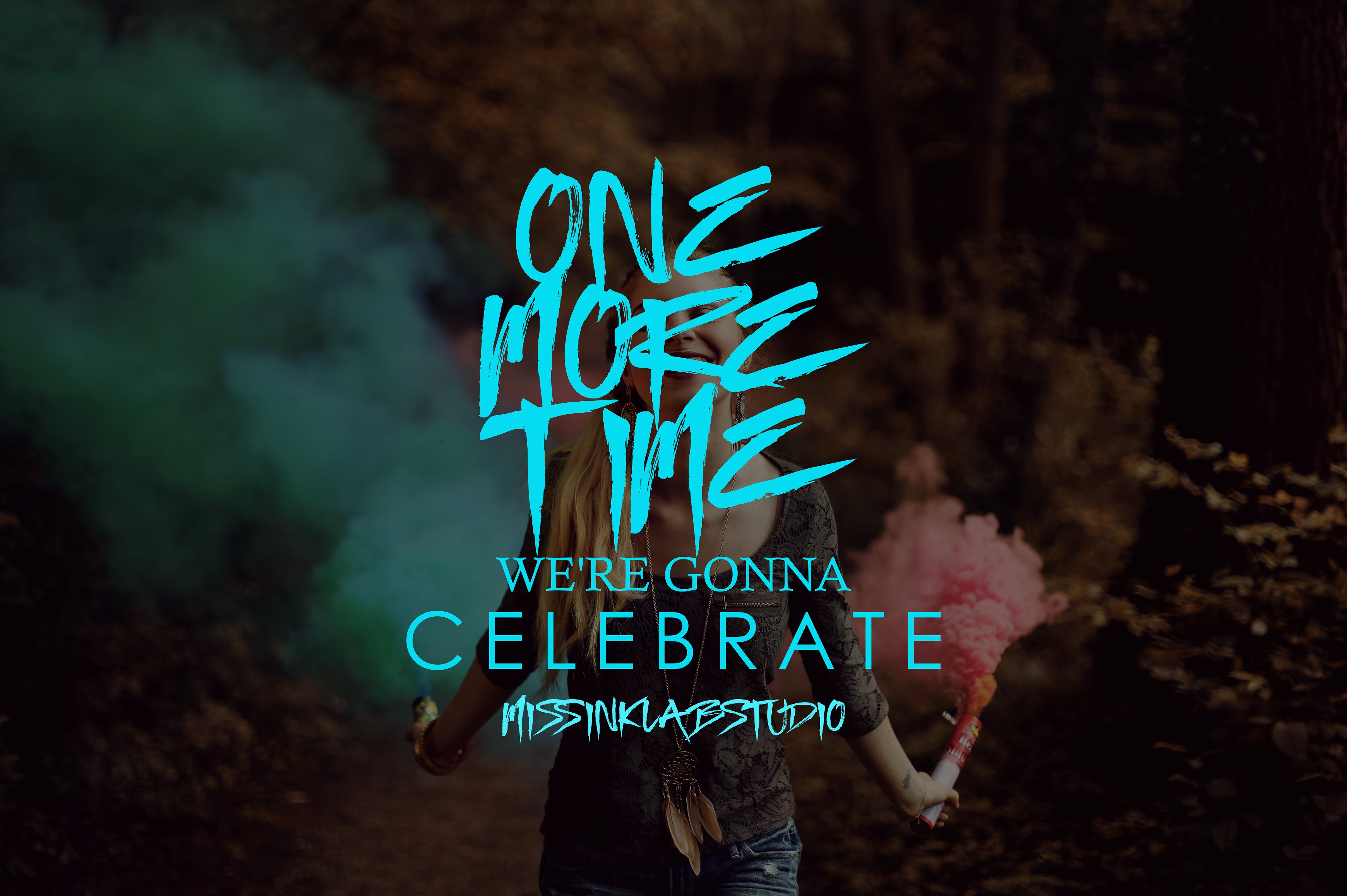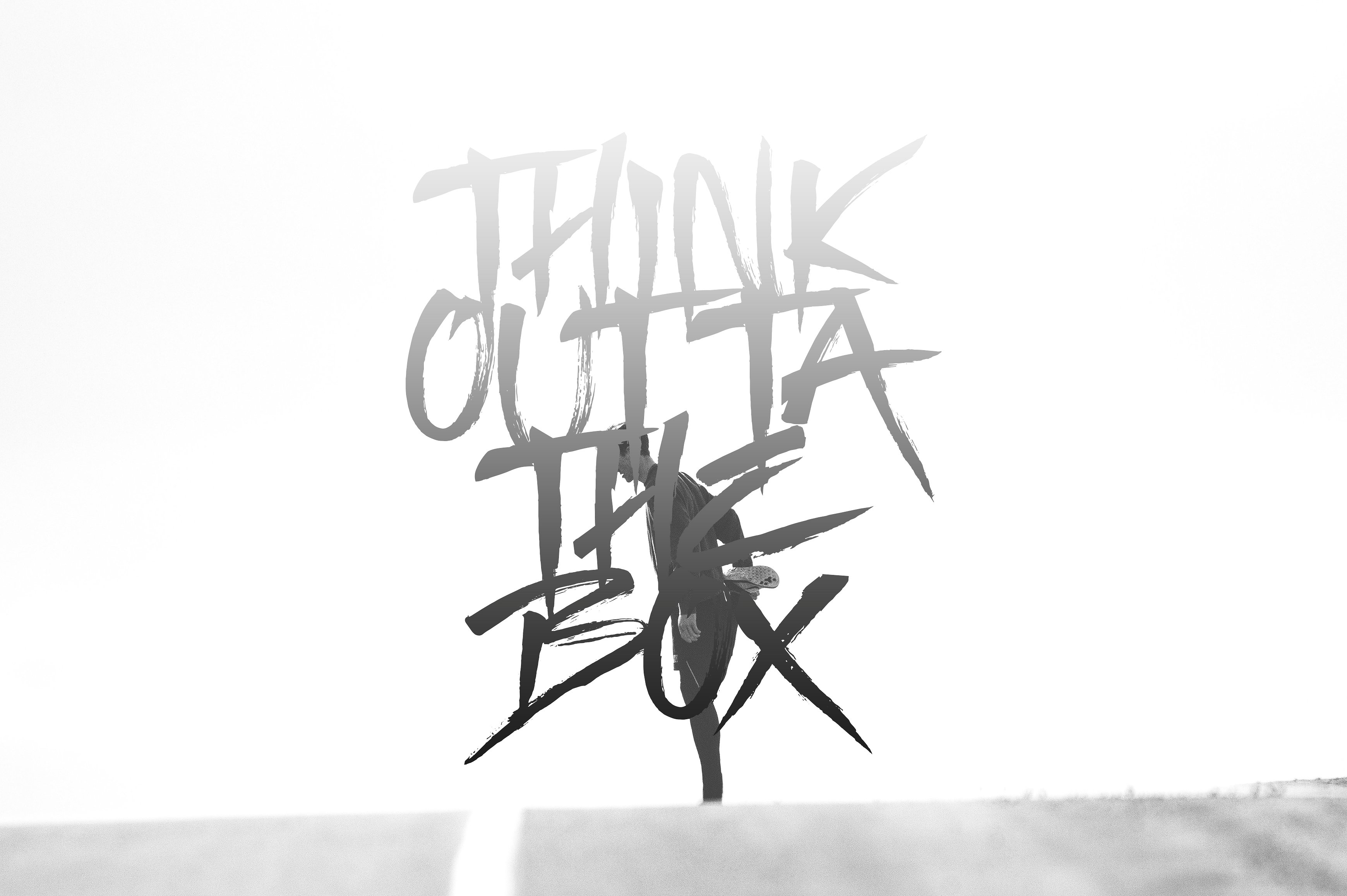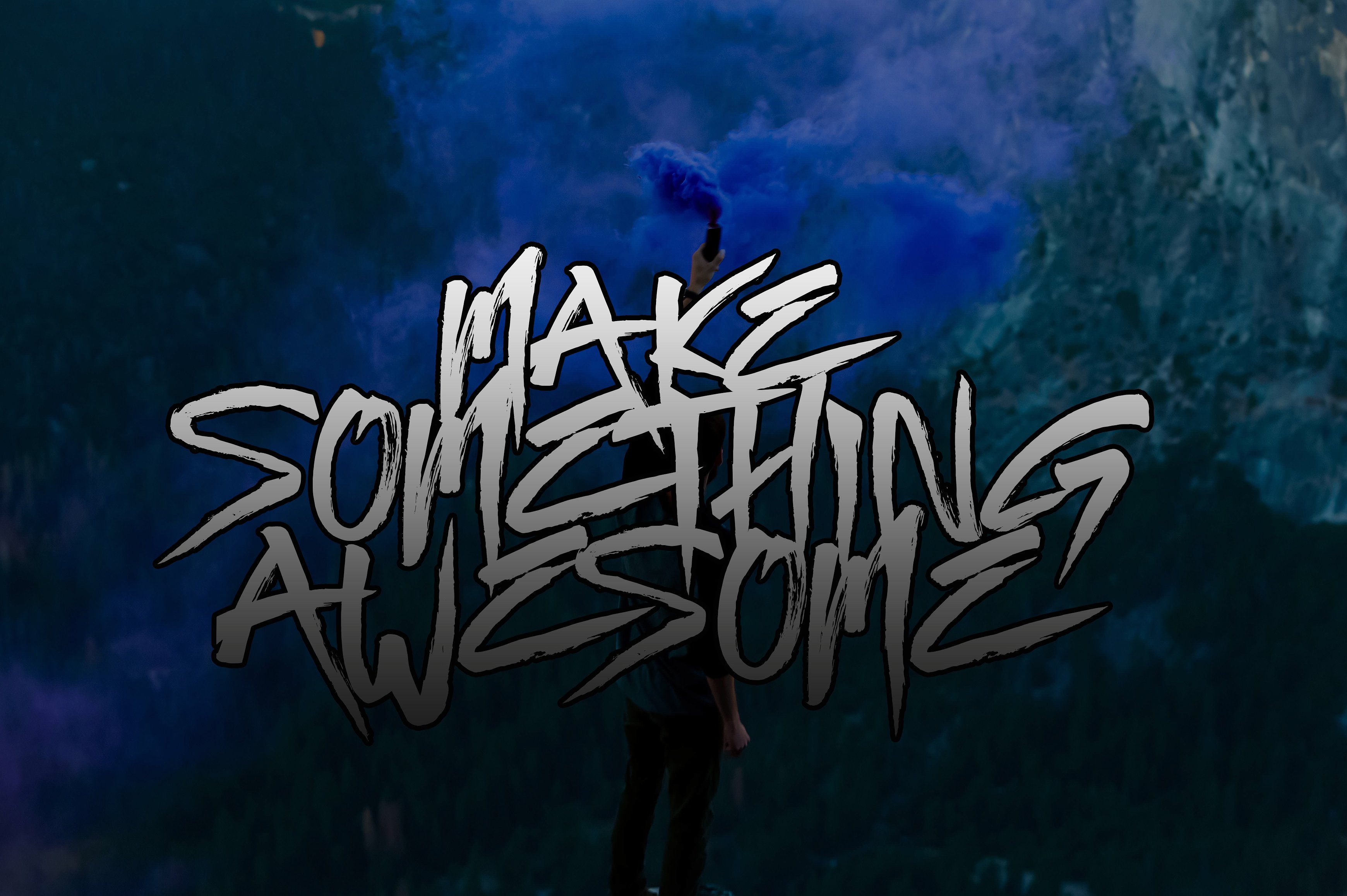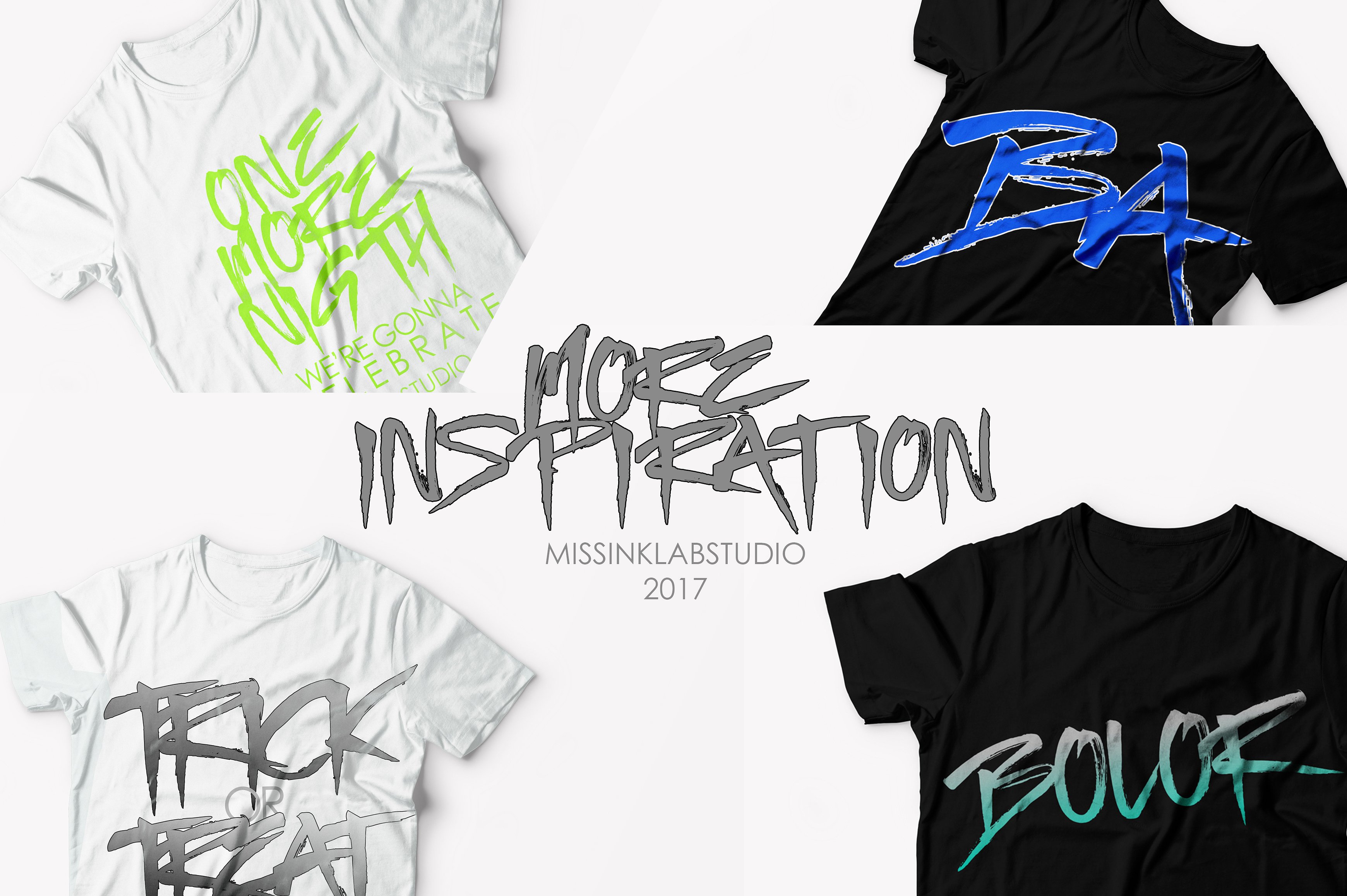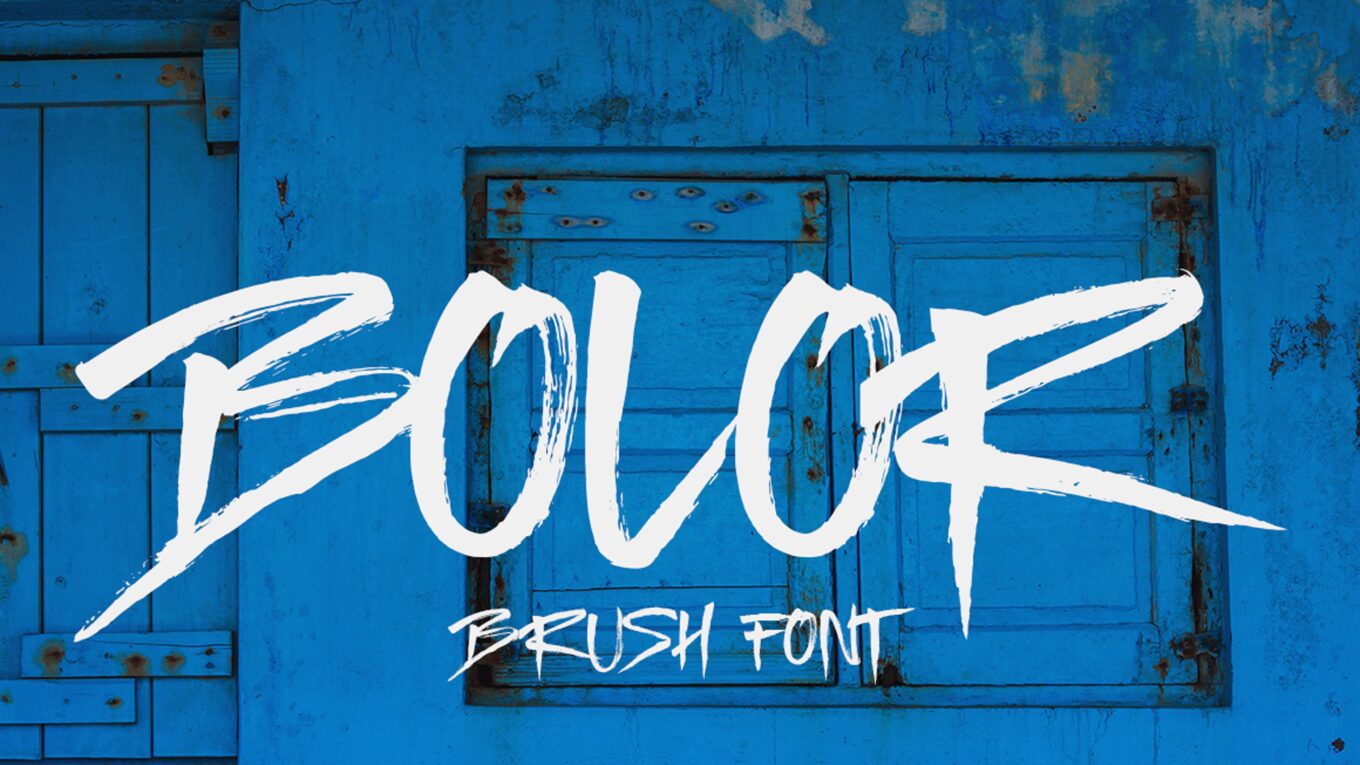
Bolor Font: A Handmade Brush with a Unique Authentic Style
Are you tired of using the same old fonts in your design projects? Do you want to add a personal touch to your corporate or personal branding? Look no further than Bolor Font, a handmade brush font that features a unique authentic style. In this article, we’ll dive into the world of Bolor Font and explore its features, benefits, and uses.
What is Bolor Font?
Bolor Font is a handmade brush font that is designed to bring a touch of authenticity and personality to your design projects. Unlike traditional fonts, Bolor Font is crafted with a unique, hand-brushed style that gives it a distinctive look and feel. This font is perfect for designers and crafters who want to add a personal touch to their work, whether it’s for a corporate or personal project.
Unique Features of Bolor Font
So, what sets Bolor Font apart from other fonts? Here are some of its unique features:
- Handmade with love: Bolor Font is carefully crafted by hand, giving it a unique and authentic style.
- Authentic style: The font features a distinctive, hand-brushed style that adds a touch of personality to your designs.
- Versatile: Whether you’re working on a corporate or personal project, Bolor Font can be used in a variety of design applications, from logos and branding to invitations and packaging.
Benefits of Using Bolor Font
So, why should you choose Bolor Font for your design projects? Here are some benefits of using this unique font:
- Adds personality: Bolor Font adds a touch of personality and authenticity to your designs, setting you apart from the crowd.
- Creates a unique look: The font’s hand-brushed style creates a unique look that is sure to grab attention.
- Easy to read: Despite its handmade style, Bolor Font is easy to read and understand, making it perfect for body text and headlines.
- Customizable: Bolor Font can be customized to fit your design needs, making it perfect for a wide range of applications.
How to Use Bolor Font in Your Design Projects
Using Bolor Font in your design projects is easy. Here are some tips to get you started:
- Pair it with other fonts: Bolor Font can be paired with other fonts to create a unique and interesting look.
- Use it for headlines: The font’s hand-brushed style makes it perfect for headlines and titles.
- Add it to your branding: Bolor Font can be used in logos, branding, and packaging to add a touch of personality and authenticity.
- Experiment with colors: The font’s unique style looks great in a variety of colors, so don’t be afraid to experiment.
In conclusion, Bolor Font is a unique and authentic handmade brush font that can add a touch of personality and style to your design projects. With its easy-to-use design, versatile features, and customizable style, Bolor Font is perfect for designers and crafters of all levels. Whether you’re working on a corporate or personal project, Bolor Font is sure to make your designs stand out from the crowd.